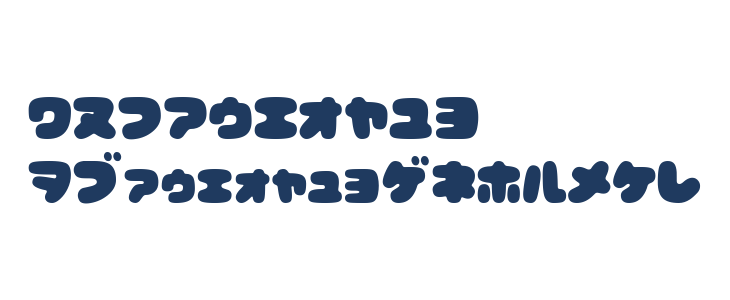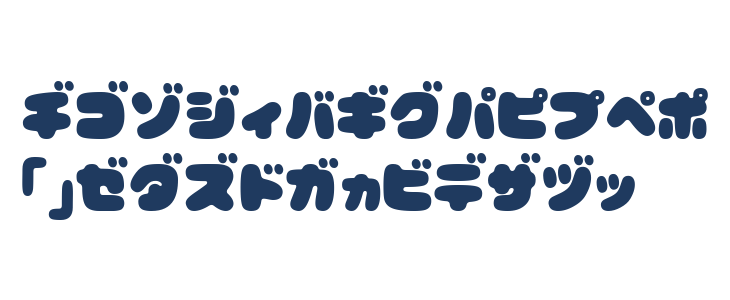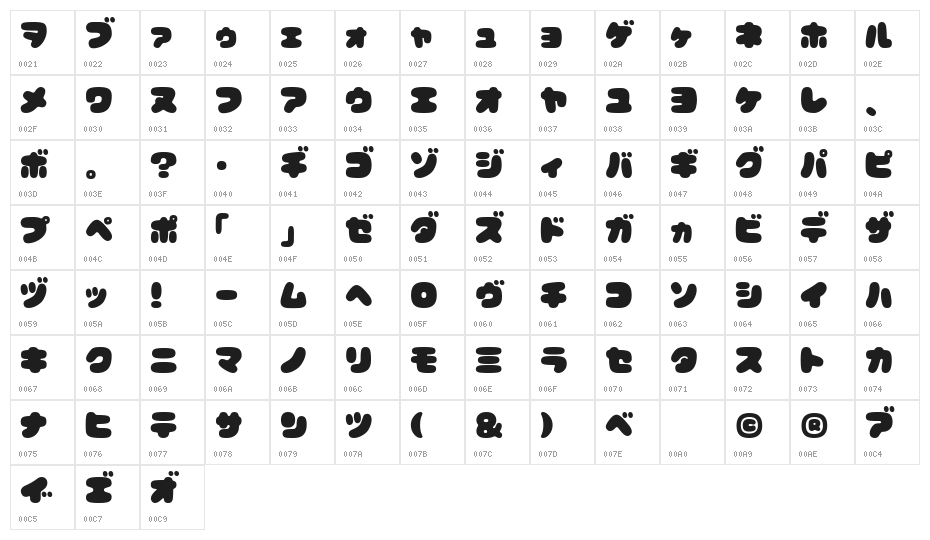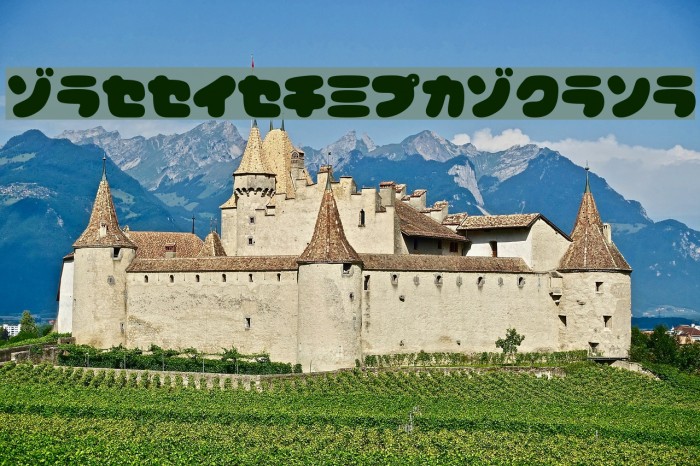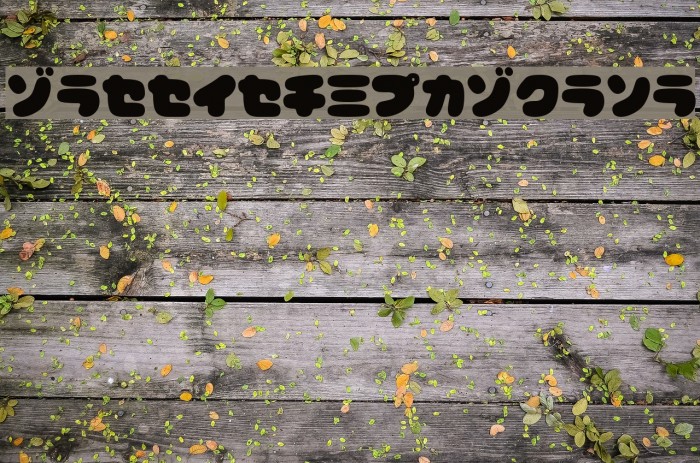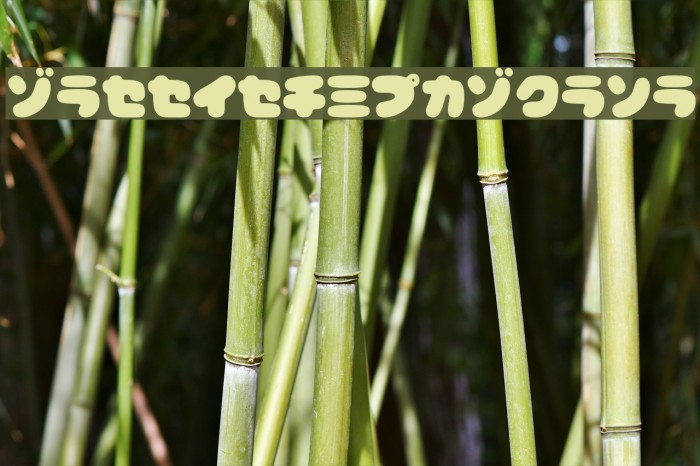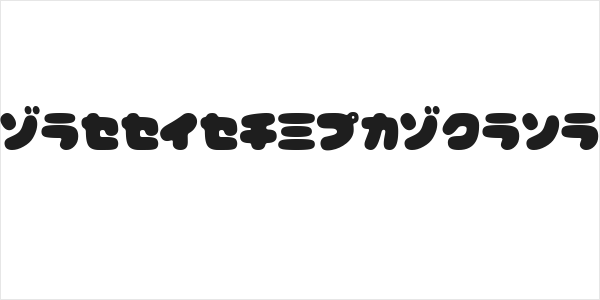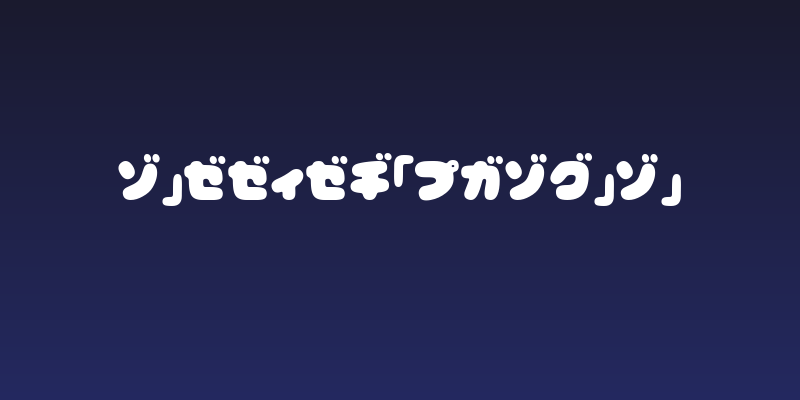
CoppepanKtChoco Font
CoppepanKtChoco Description
This font features a bold and playful style with rounded edges and a bubbly appearance. The characters are thick and have a uniform stroke width, giving them a strong presence on the page. The design is reminiscent of cartoon or comic book lettering, making it ideal for projects that require a fun and informal touch. The characters are evenly spaced, contributing to a cohesive and balanced look. This font is particularly suitable for use in creative and lighthearted contexts, where its unique style can stand out and capture attention.
| Overall Style | Playful, Cartoonish |
| Proposed Projects | Ideal for children's books, comic strips, playful branding, and party invitations. |